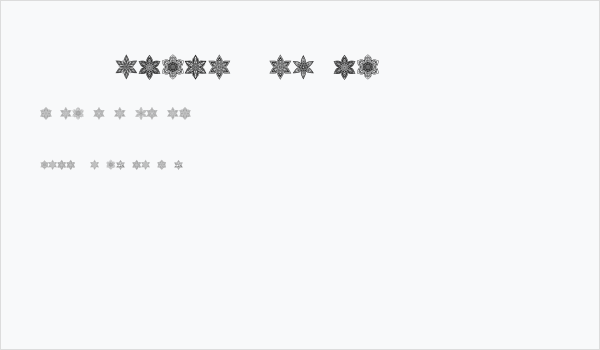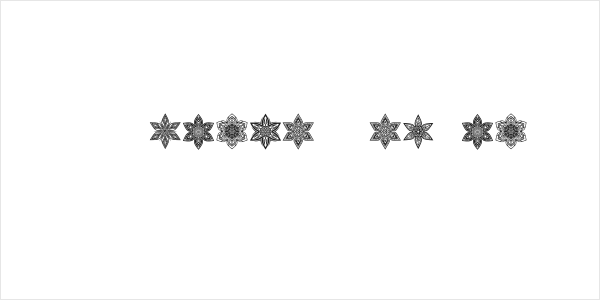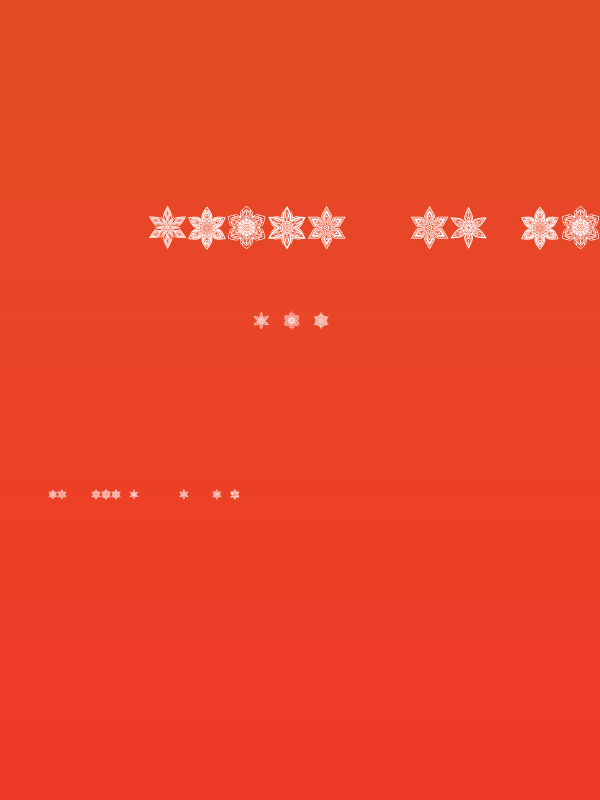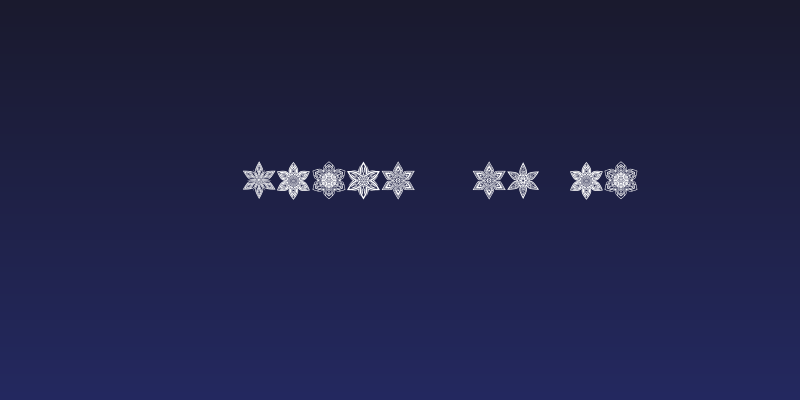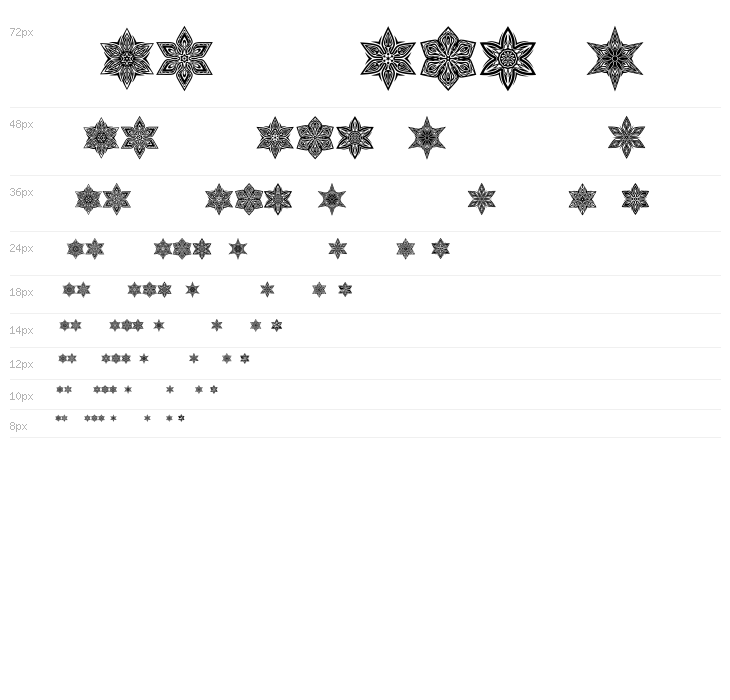
Snowflake Regular Font
Snowflake Regular Description
This design features a series of intricate snowflake patterns, each uniquely crafted with detailed geometric shapes and symmetrical lines. The snowflakes exhibit a high level of detail, with each one presenting a distinct pattern that captures the essence of winter's natural beauty. The designs are consistent in size and spacing, creating a harmonious and visually appealing sequence. The black and white contrast enhances the intricate details, making each snowflake stand out distinctly. This decorative style is perfect for adding a touch of elegance and sophistication to any project.
| Use Case | Decorative elements, Borders, Holiday themes |
| Proposed Projects | Ideal for holiday cards, winter-themed invitations, decorative borders, and festive packaging designs. |